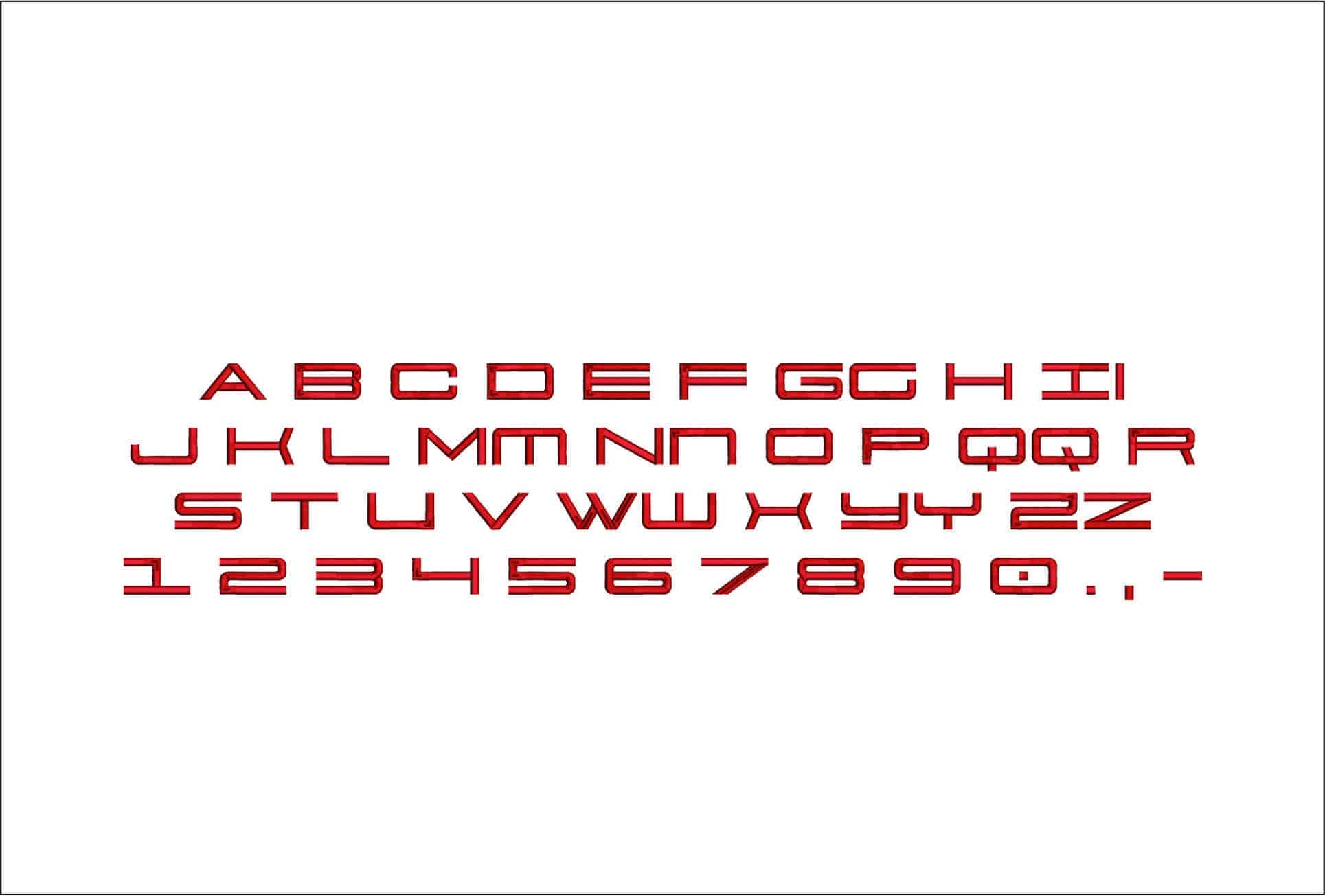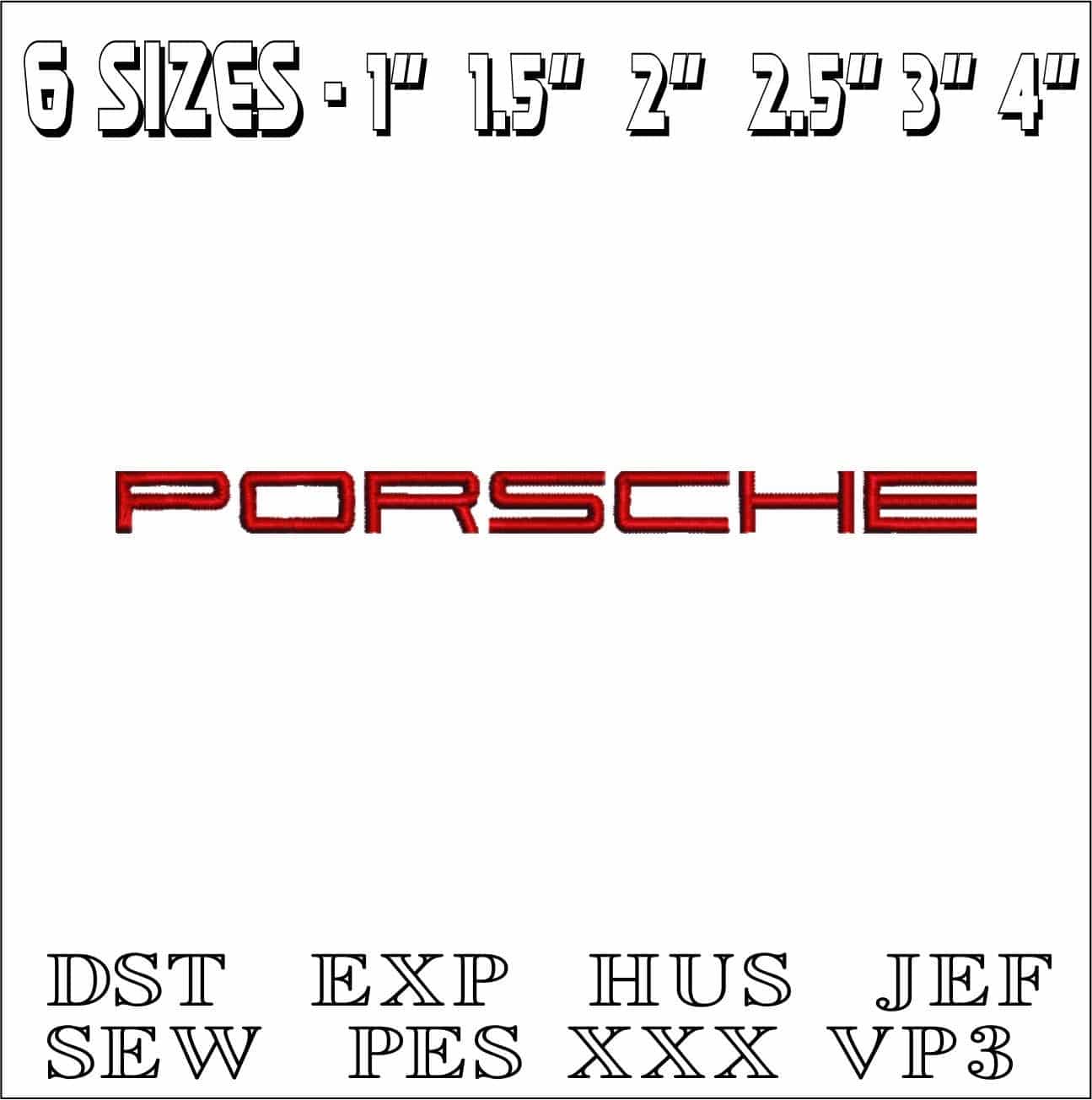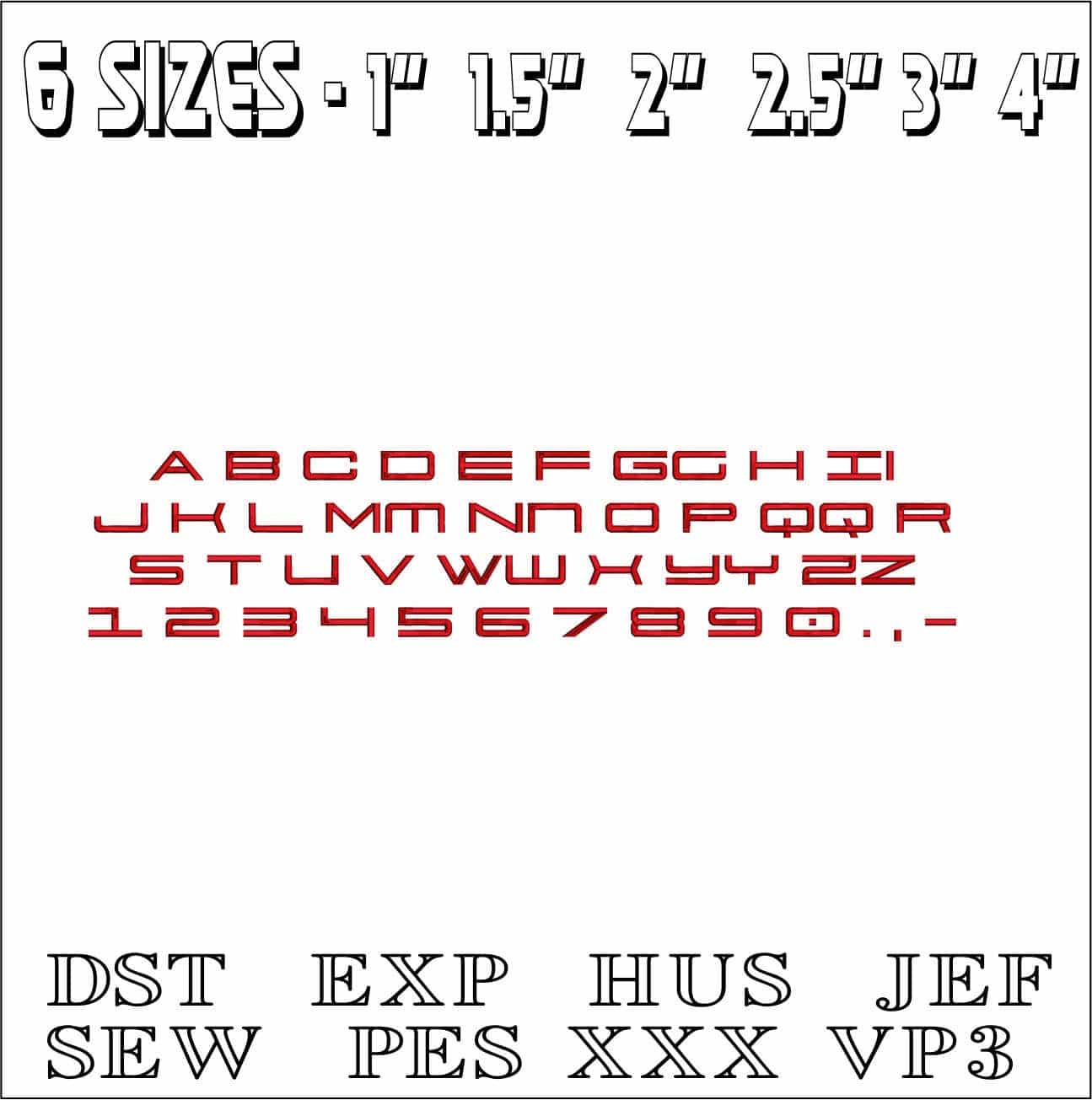
A sleek Porsche-style embroidery font set for adding a sharp, motorsport-inspired wordmark to jackets, bags and workshop gear.
Bring sleek motorsport style to your stitching with this Porsche-inspired embroidery font set, shown in a bold red sample with uppercase letters, numbers and punctuation. The letterforms have a clean, modern shape that suits anyone personalising car-themed clothing, garage accessories or branded gifts with a crisp, recognisable look. It is especially effective for names, initials and short wordmarks where you want the text itself to carry the design.
Use it on jacket backs, polo shirts, sweatshirt chests, caps, tool rolls or canvas bags where a strong, streamlined alphabet reads clearly. The style stays neat and graphic rather than ornate, so it works well on practical fabrics like denim, twill and stable cotton as well as smoother pieces that suit a refined finish. With several size options in the set, you can scale the same distinctive lettering from smaller placements to bolder headline text without losing that clean, performance-led feel.